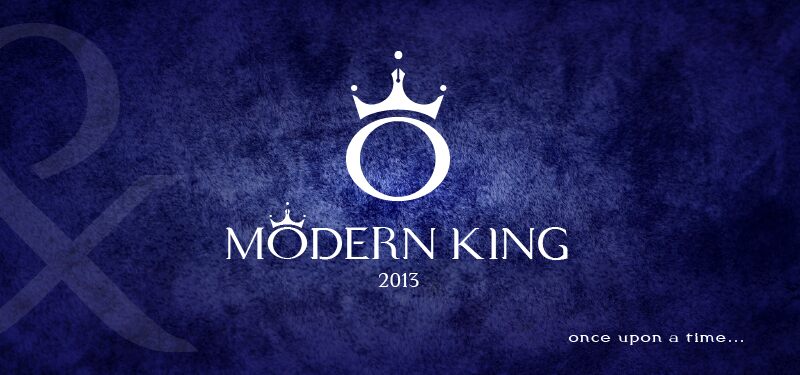
Modern King by Pyrus FreeSerif is a free high-contrast serif font with the poised drama of a fashion masthead. Its tall letters combine very fine hairlines with broad vertical strokes, pointed serifs, tightly drawn joins, and sweeping rounded forms. The silhouettes are crisp and statuesque.
Didone-inspired styling makes it especially apt for luxury packaging, editorial covers, and formal invitations, since the sharp stroke changes suggest refinement rather than decoration. Fashion branding and cultural event posters also suit its severe geometry, though its most convincing role is a magazine title or product name intended to feel elegant, theatrical, and deliberately oversized.